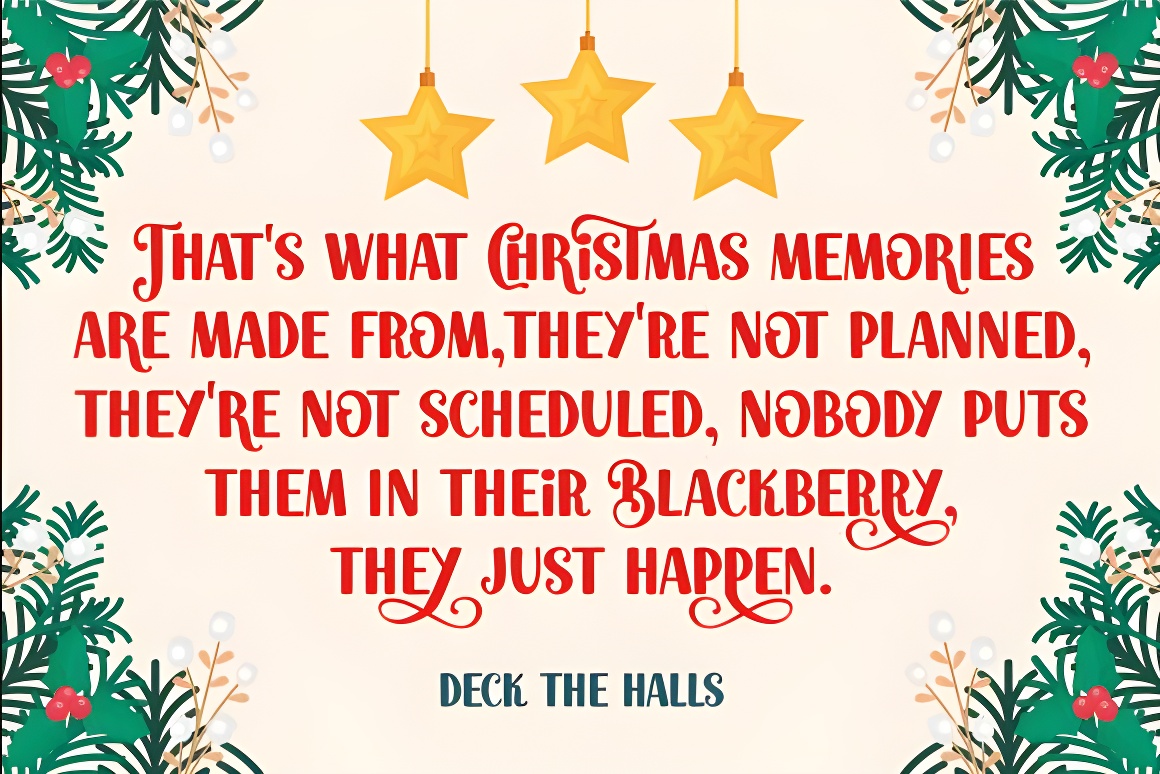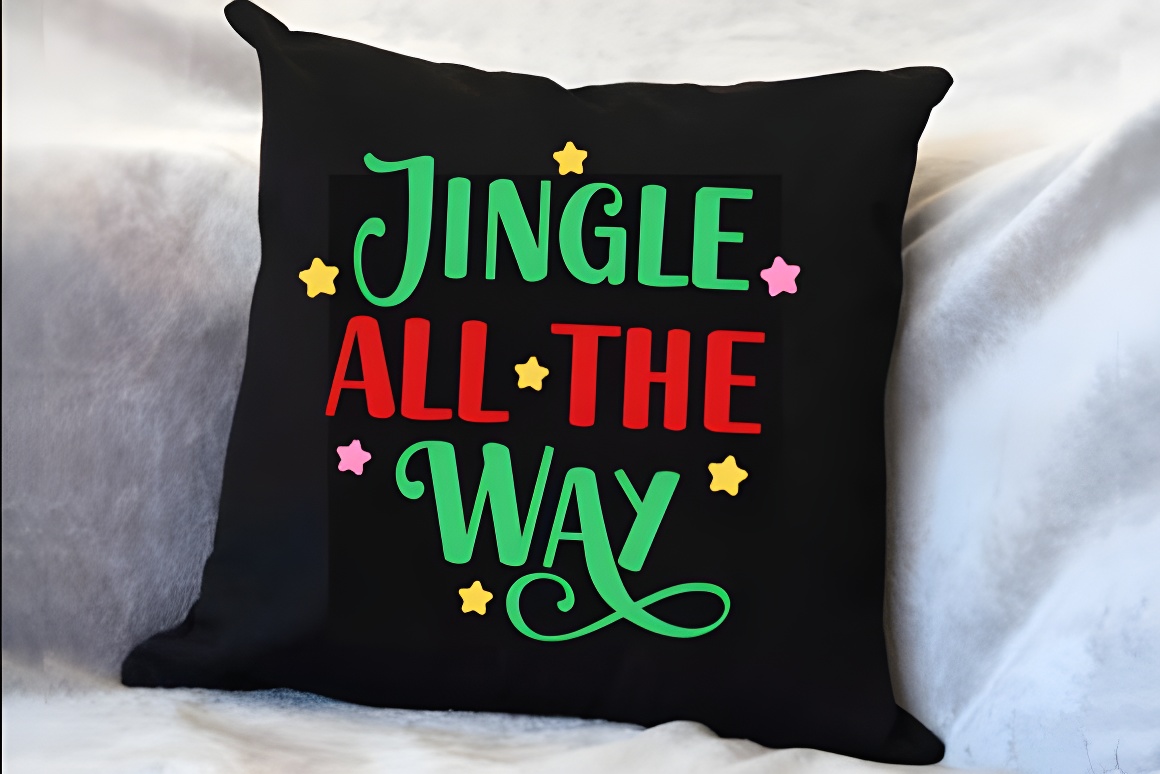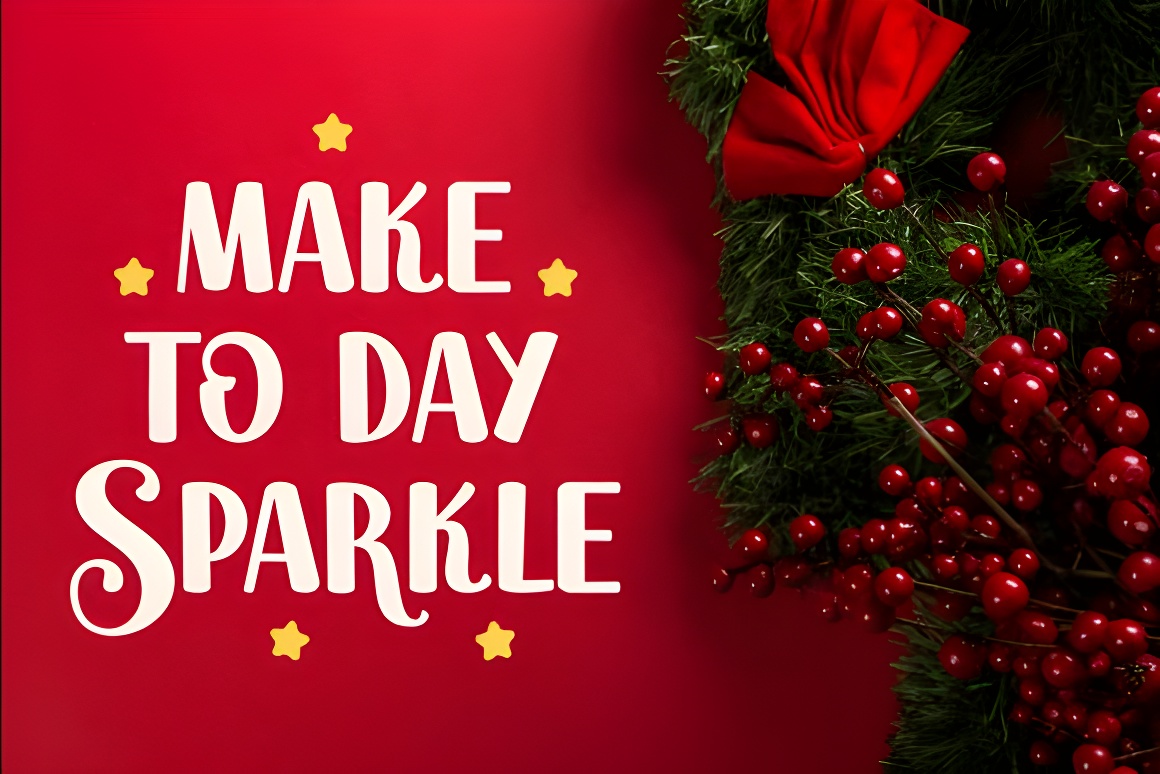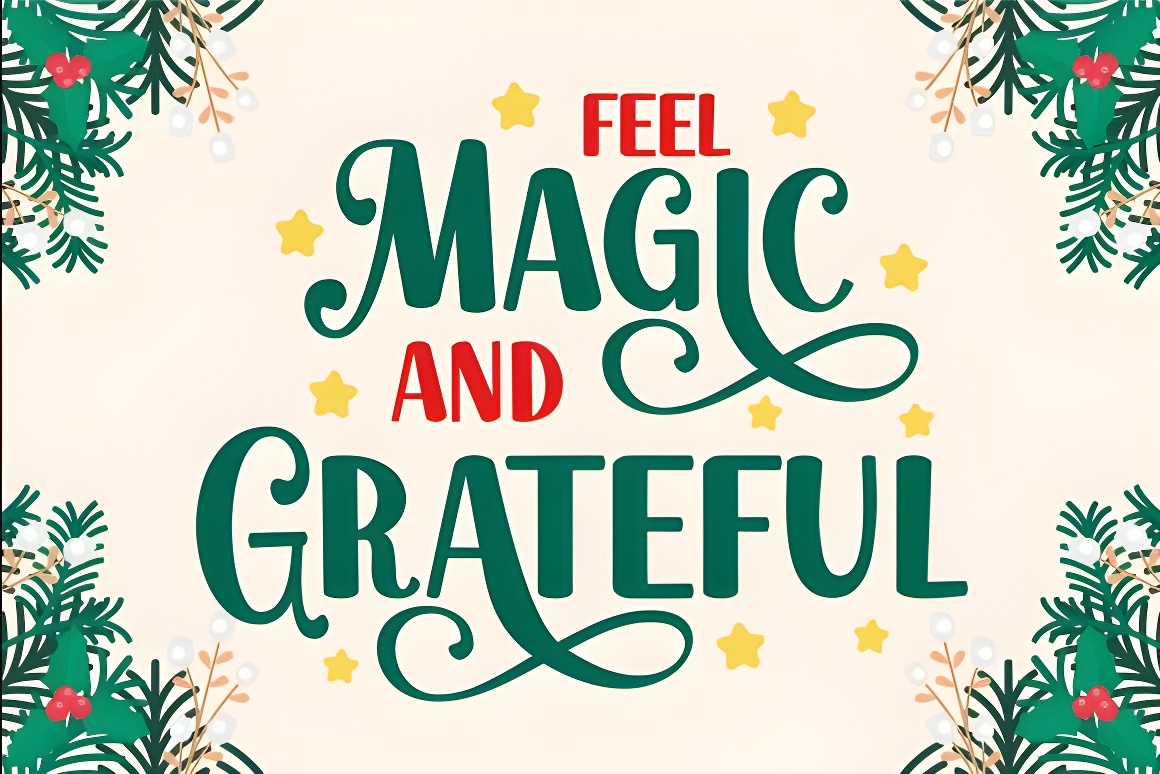
Festive Christmas Script Font - Elegant Holiday Typography
Festive script font featuring enchanting swashes & playful charm. Perfect for Christmas cards, décor, invitations & more. PUA encoded for easy access to all glyphs and ligatures.